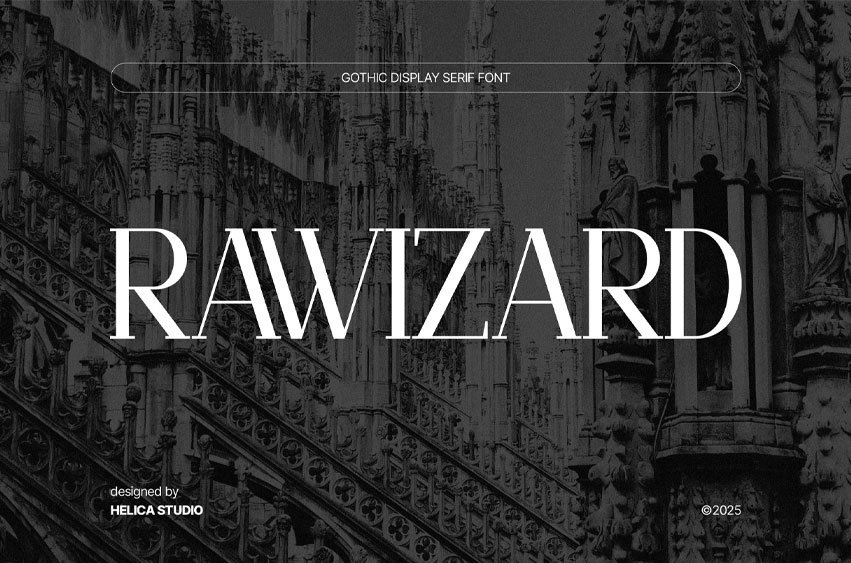
Rawizard Font is a Modern Gothic display serif font with a commanding presence. Rawizard brings strong vertical contrast and elegant serif details ideal for headlines, branding, posters, or editorial designs that require a dramatic and timeless touch.
Suitable for: Branding: Luxury brands, historical or heritage-focused businesses, high-end fashion, legal firms. Headlines/Titles: Book covers (especially fantasy, historical fiction, or drama), movie titles, editorial headlines, magazine layouts. Packaging: Premium product packaging that aims for an elegant, established feel. Logos: For brands seeking a classic, strong, and distinguished identity. Architecture/Real Estate: Upscale property developments or architectural firms.